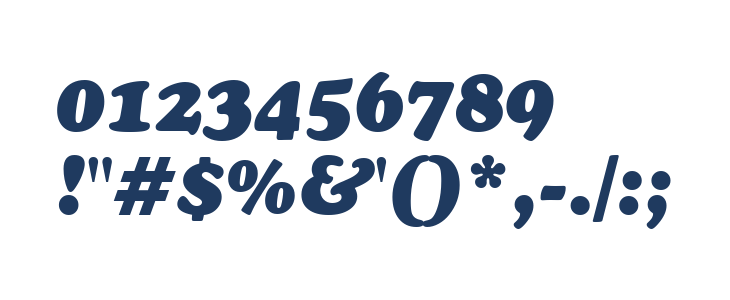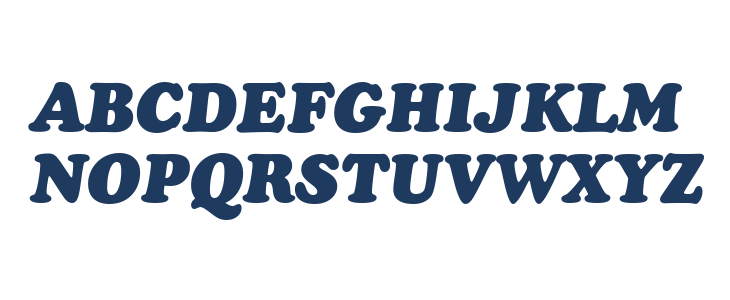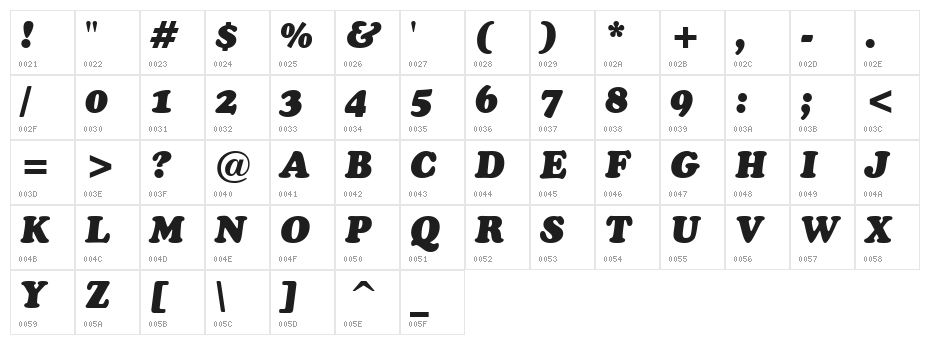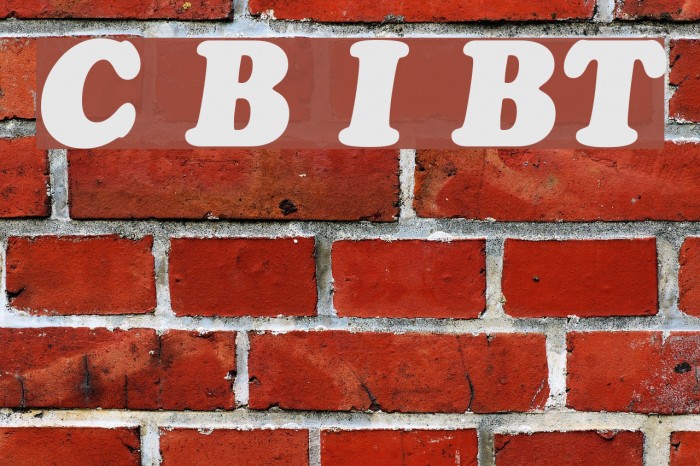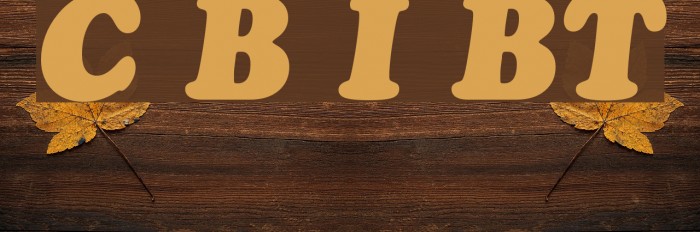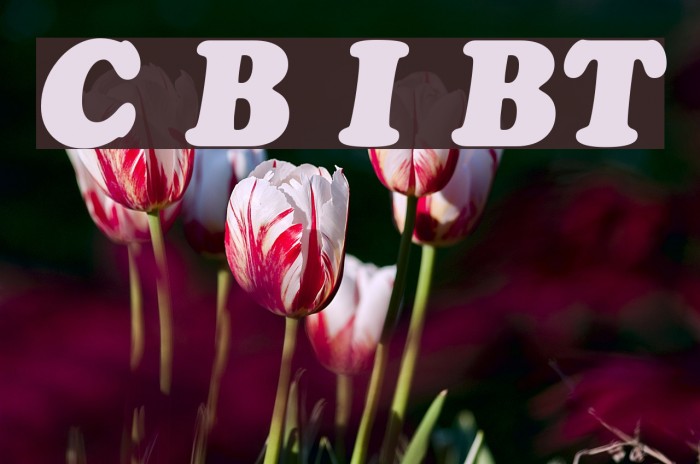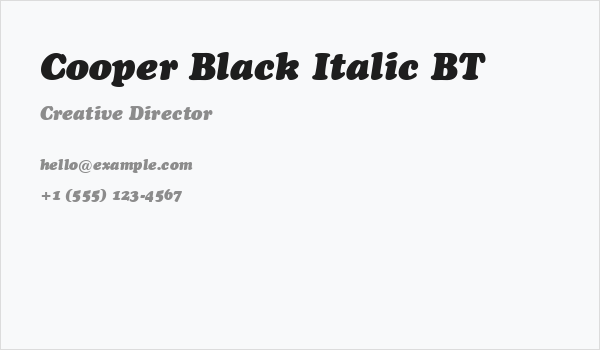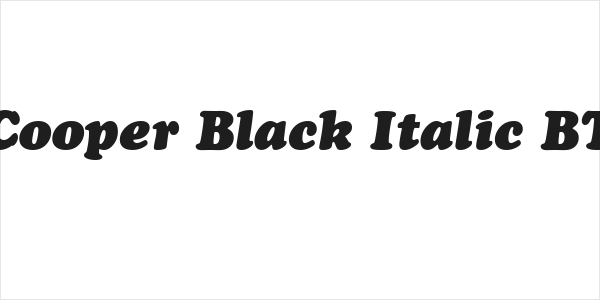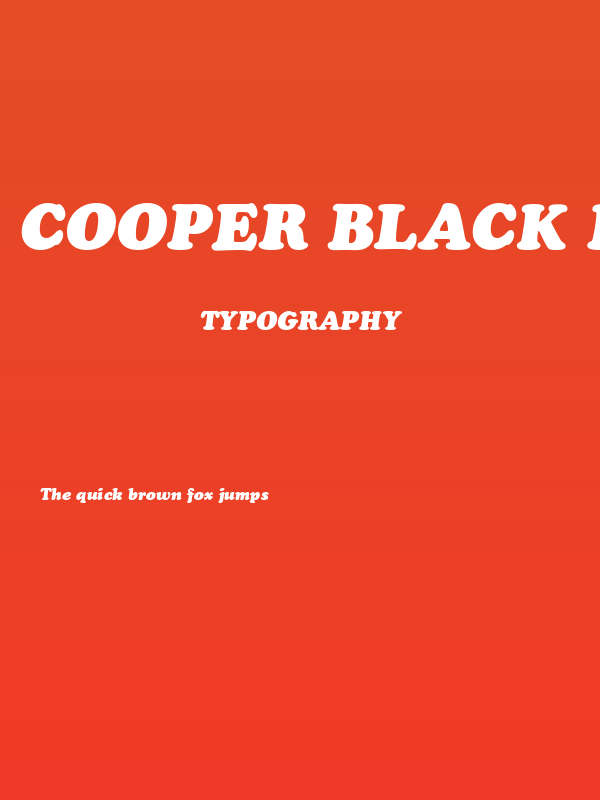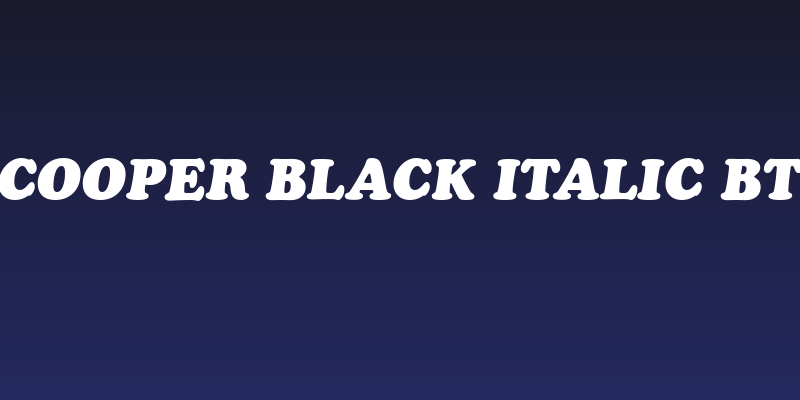
Cooper Black Italic BT Font
Cooper Black Italic BT Description
This font features a bold, rounded style with a playful and retro aesthetic. The letters are thick and have a slightly italicized slant, giving them a dynamic and energetic feel. The strokes are smooth and uniform, with rounded edges that add a friendly and approachable character. The uppercase and lowercase letters maintain a consistent weight, providing a cohesive look across different text sizes. The numerals and special characters are designed to match the overall style, ensuring versatility in various applications. This font's unique charm makes it suitable for projects that require a touch of nostalgia or a bold statement.
| Overall Style | Retro |
| Proposed Projects | Ideal for vintage-themed posters, playful branding, and eye-catching headlines. |